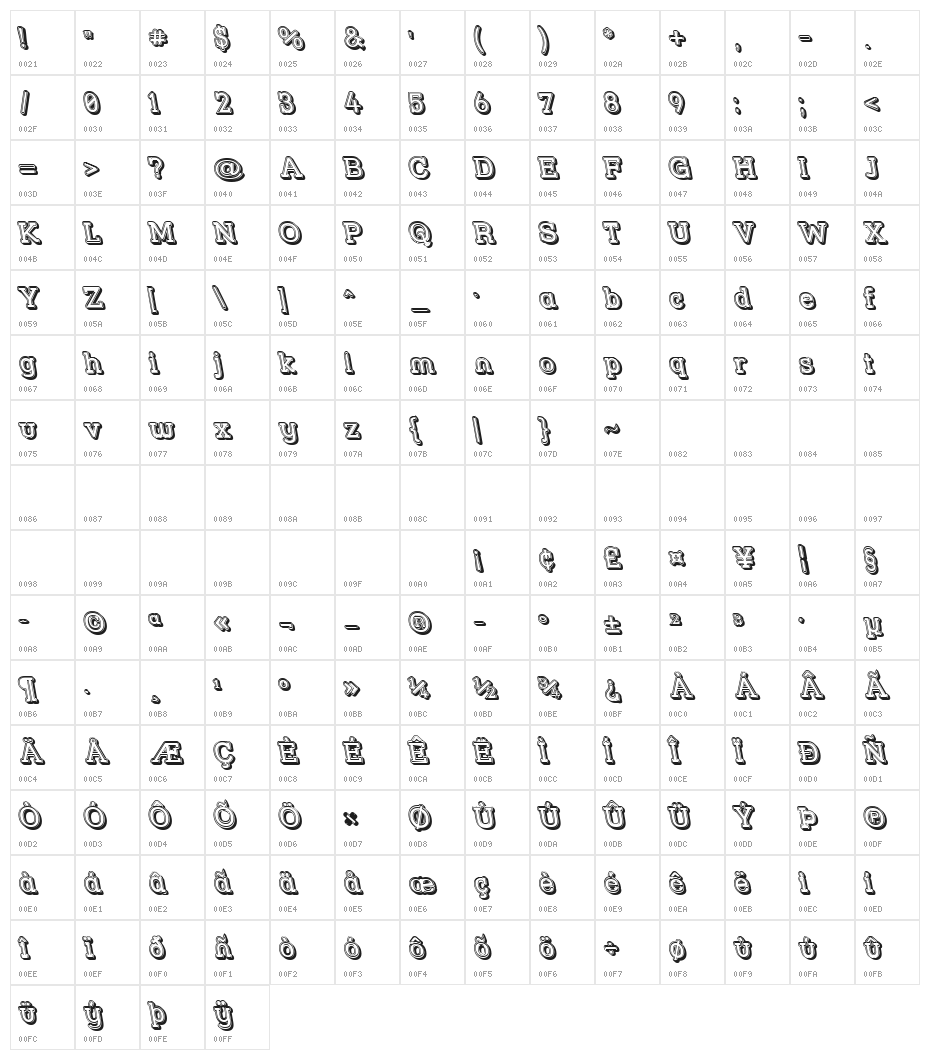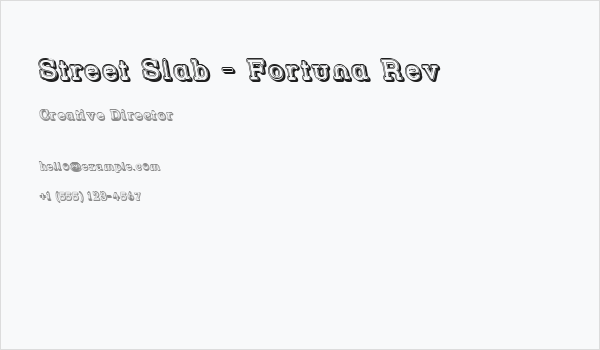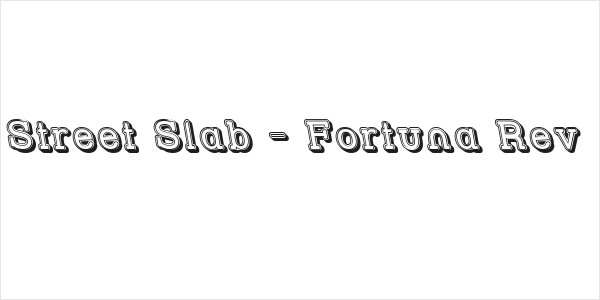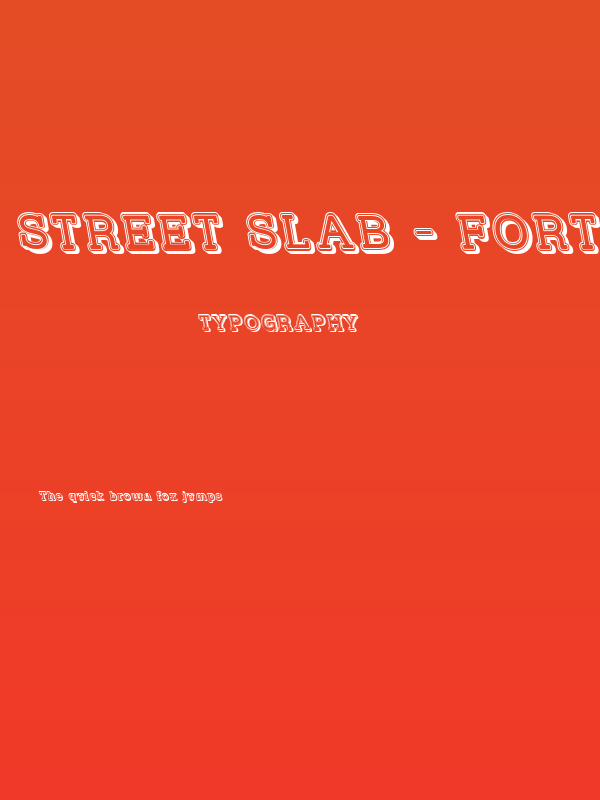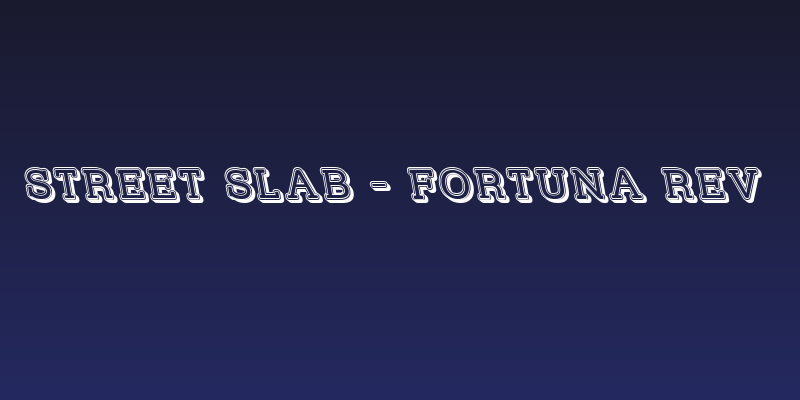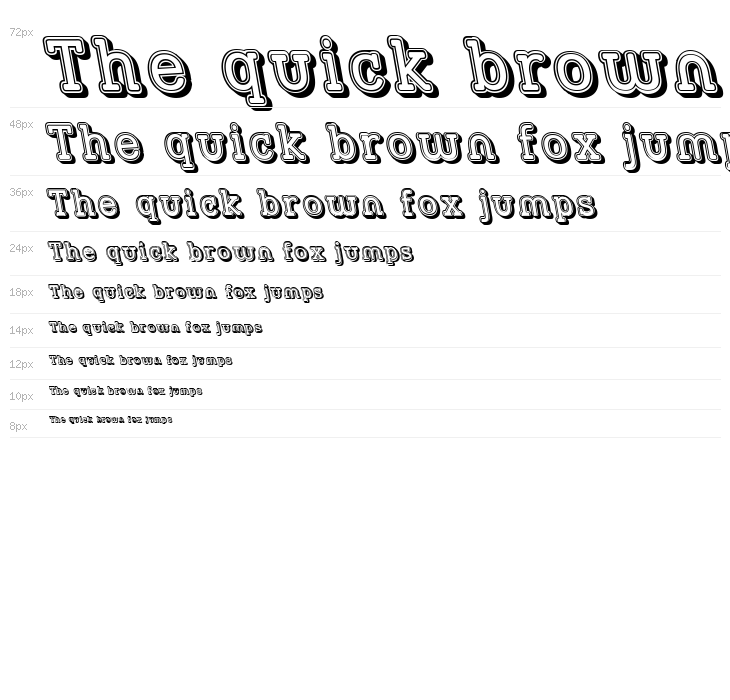
Street Slab - Fortuna Rev Font
Street Slab - Fortuna Rev Description
This font features a bold, slab serif style with a distinct three-dimensional effect. The letters are outlined with a thick black shadow, giving them a striking, impactful appearance. The uppercase and lowercase characters maintain a consistent width, contributing to a uniform look. The numerals and special characters follow the same design principles, ensuring cohesion across all elements. The font's playful yet robust style makes it suitable for eye-catching designs. Its boldness and shadowing create a sense of depth and dimension, making it ideal for projects that require a strong visual presence.
| Proposed Projects | Ideal for posters, headlines, logos, and any design needing a bold, impactful typeface. |